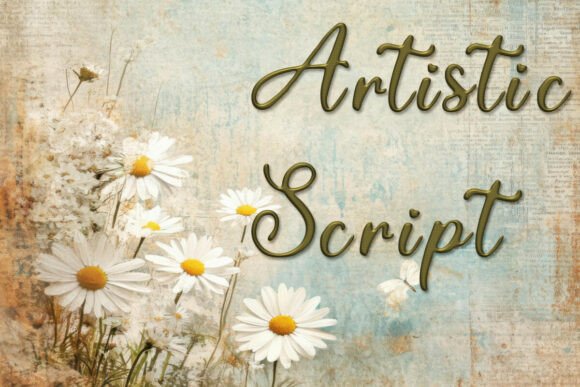
Unleash Your Creativity with Artistic Script Font
Have you ever been stuck in a design rut, searching for that perfect font to give your project an extra oomph? You know, that moment when you’re browsing through font options, and suddenly, a spark of inspiration hits you? That’s exactly what happened when I discovered the enchanting Artistic Script Font. Its elegant curves and whimsical flair have a way of elevating even the most mundane designs into stunning masterpieces.
Whether you’re a seasoned designer or a DIY enthusiast, the Artistic Script Font is a valuable addition to your creative arsenal. Its versatility makes it an ideal choice for a wide range of projects, from eye-catching t-shirt designs to sophisticated branding, and everything in between. With this font, you’ll be able to add a touch of sophistication and whimsy to your designs, setting them apart from the rest.
Key Features of Artistic Script Font
- Unique Characteristics: Hand-drawn, cursive design with intricate details and flourishes, ideal for creative and artistic purposes
- Style Options: Includes multiple font styles, such as regular, bold, italic, and bold italic, for added versatility
Review of Artistic Script Font
Overall, I think the Artistic Script Font is a beautiful and elegant font, perfect for adding a touch of whimsy to your designs. ✨ It’s great for titles, headings, and other display text where you want to make a statement. The font’s intricate details and flourishes add a level of sophistication and artistry that’s hard to find in other fonts.
However, I do have a few concerns about the font’s limitations. ⚠️ First, it can be quite difficult to read in smaller sizes, especially in body text. This is because the font’s intricate details can make it hard to distinguish between individual characters. Additionally, the font may not be the best choice for text-heavy designs, as it can be quite slow to read.
Here are a few specific things that work well with the Artistic Script Font:
- Display text: As mentioned earlier, this font is perfect for titles, headings, and other display text where you want to make a statement.
- Wedding invitations: The font’s elegant and romantic feel makes it a great choice for wedding invitations and other special occasion stationery.
- Book covers: The font’s intricate details and flourishes add a level of sophistication and artistry that’s perfect for book covers.
Overall, I think the Artistic Script Font is a great choice for designers who want to add a touch of elegance and sophistication to their designs. Just be aware of its limitations and use it sparingly in text-heavy designs.
Use the Artistic Script font to add a touch of elegance and sophistication to your designs. Experiment with different font sizes and colors to achieve the desired effect. You can also combine the Artistic Script font with other fonts to create a unique and eye-catching look.
The Artistic Script font is commonly used for:
– Luxury branding and packaging
– High-end marketing materials
– Personalized gifts and stationery